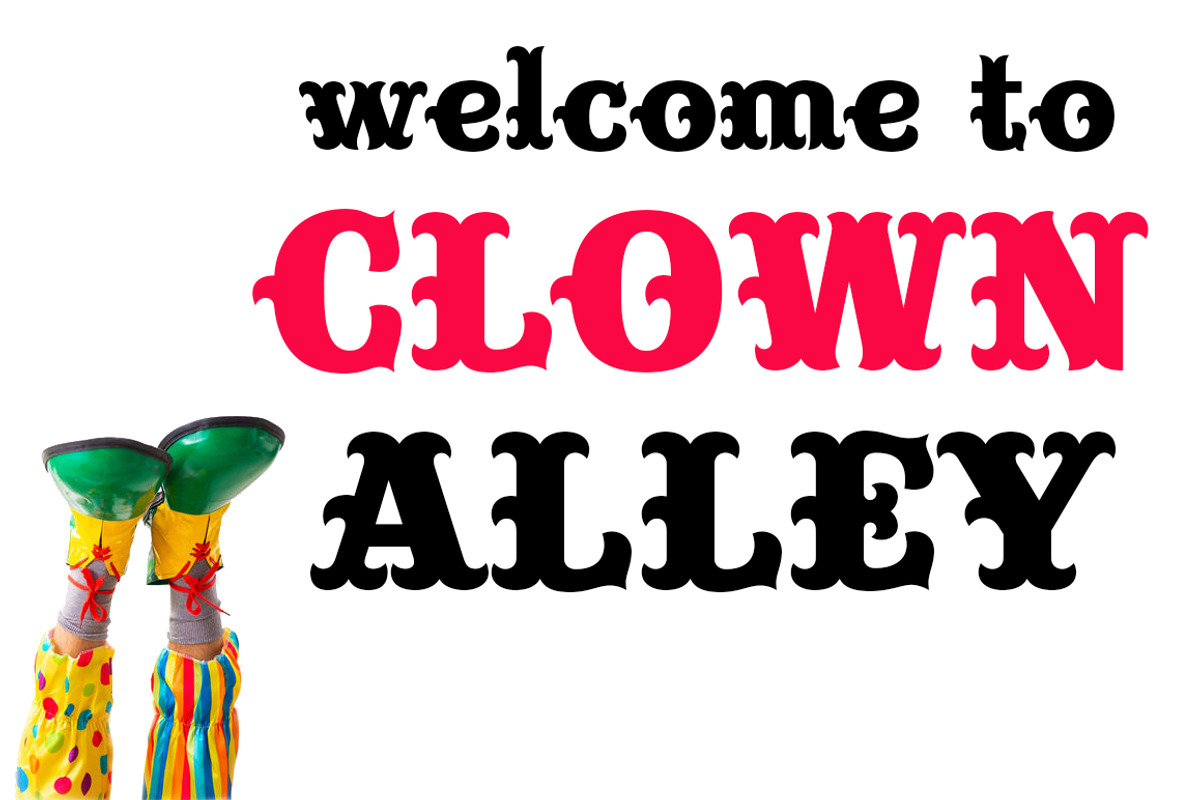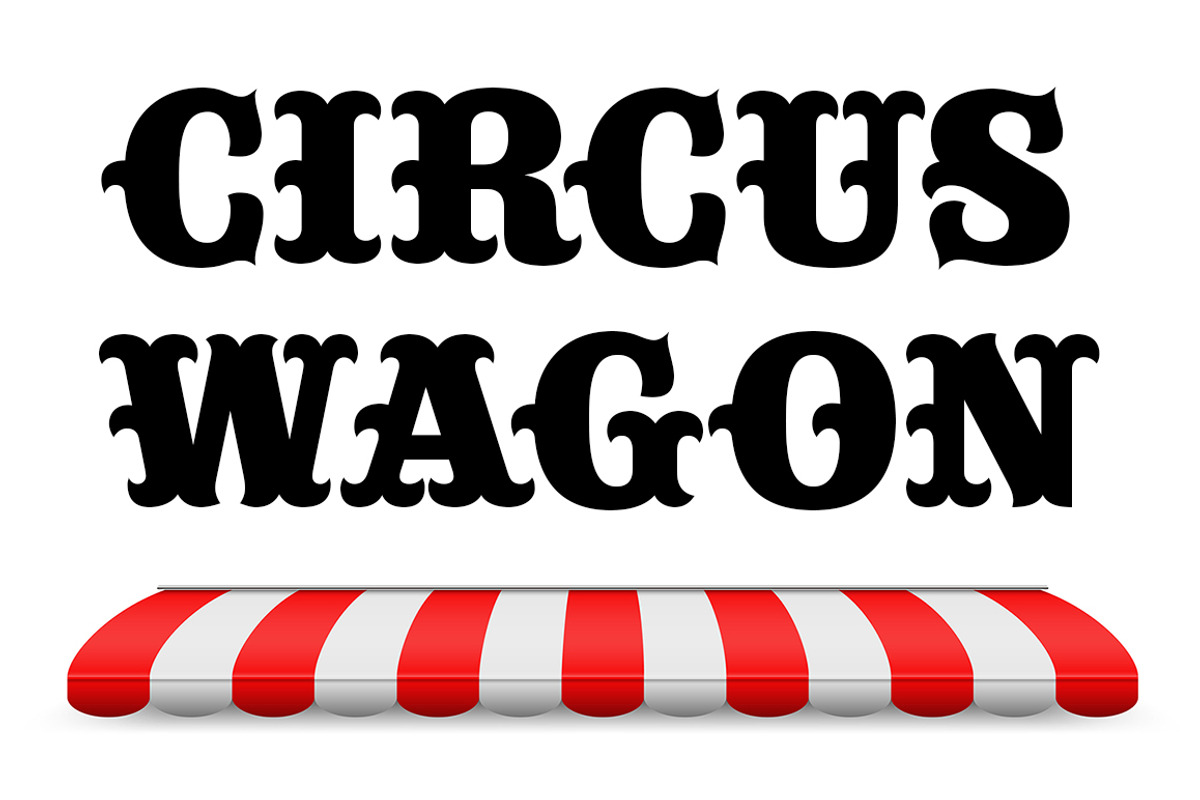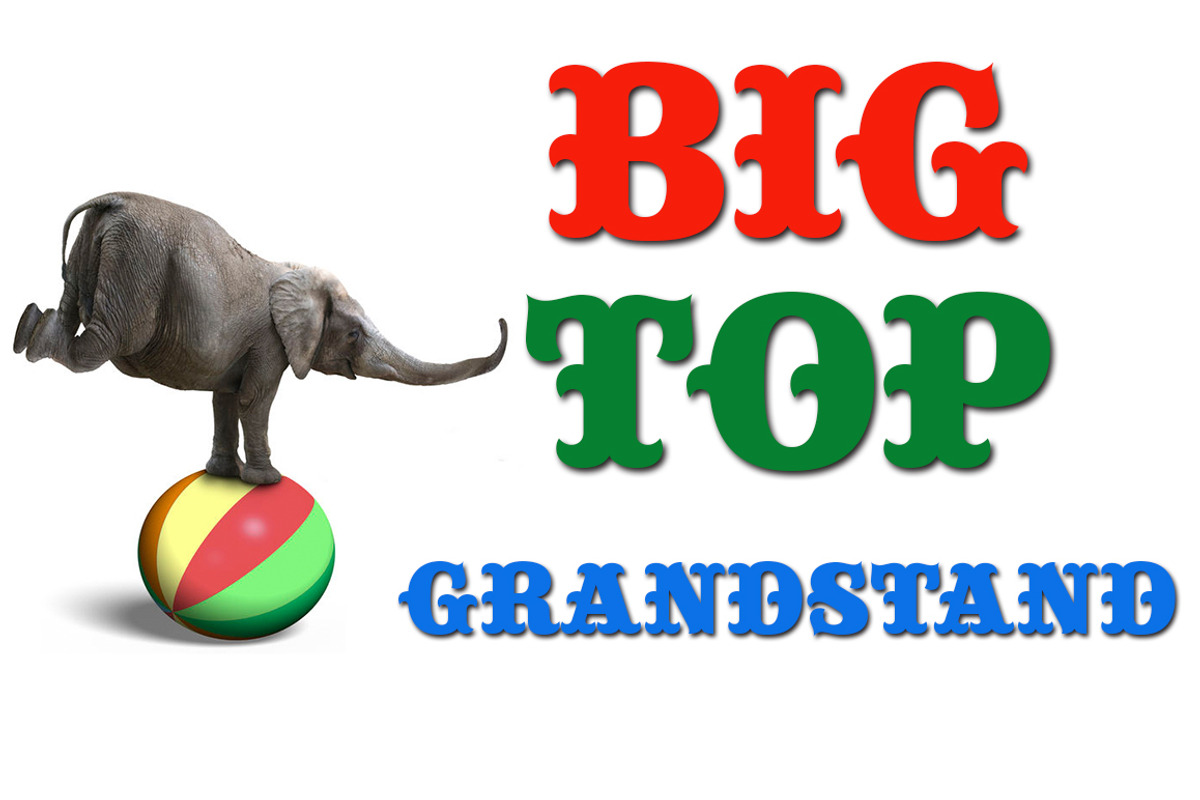
Circus Wagon
Circus Wagon is a revival of the old circus style font named Big Top in the Dan Solo catalog. This version has been freshened up with a matching lowercase. Our original 2005 release of this font was named Buckhorn, this 2020 updated release changes the name and adds additional accented glyphs plus Opentype case sensitive forms. You will need an Opentype aware application to access Opentype features in this font.